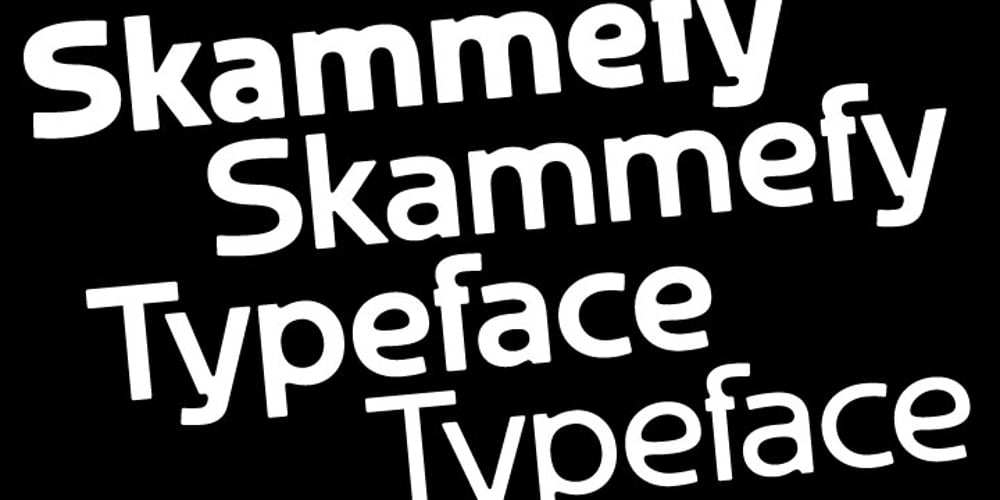
Skammefy Font Family was designed by Andreas Johansen and published by Andreas Søren Johansen. Skammefy contains 3 styles and family package options. Skammefy holds a detailed set of letters, that are intended to be both readable when small – and charismatic when large. Strong details of letters like e, a, g, f, y draws attention to headlines, signs or wherever it might be used.